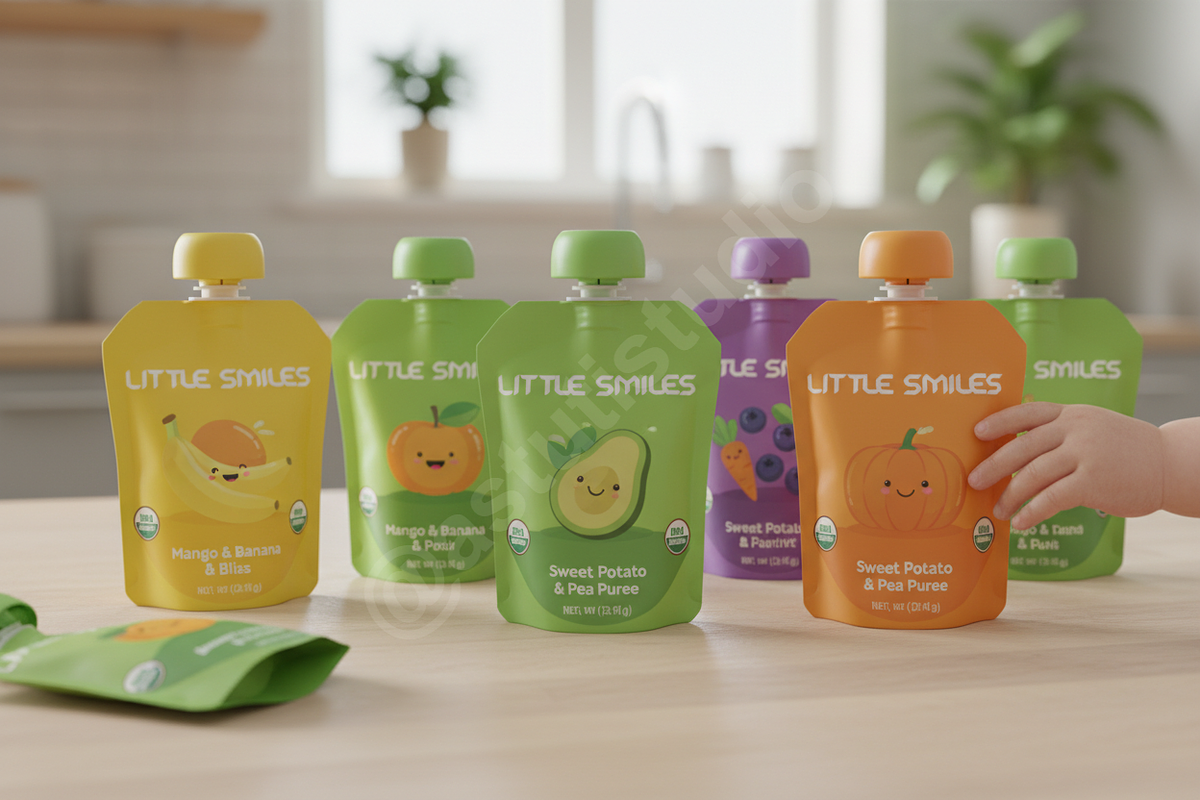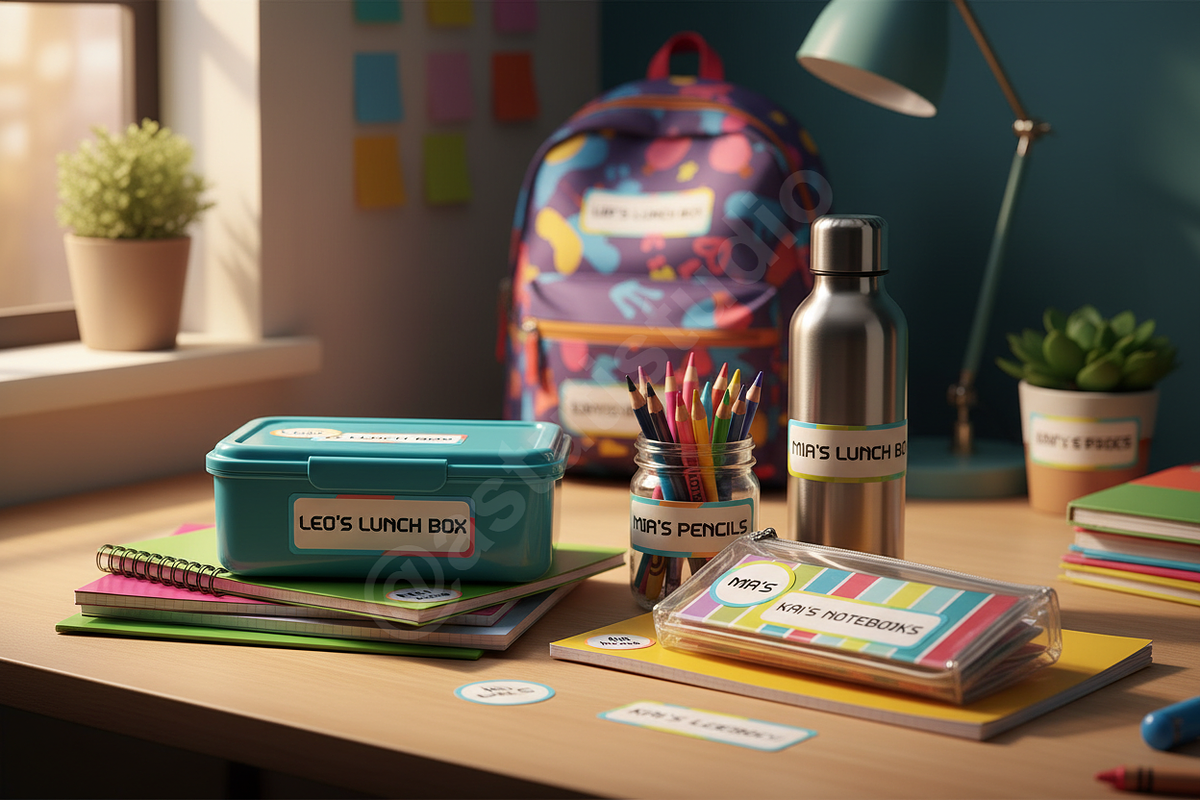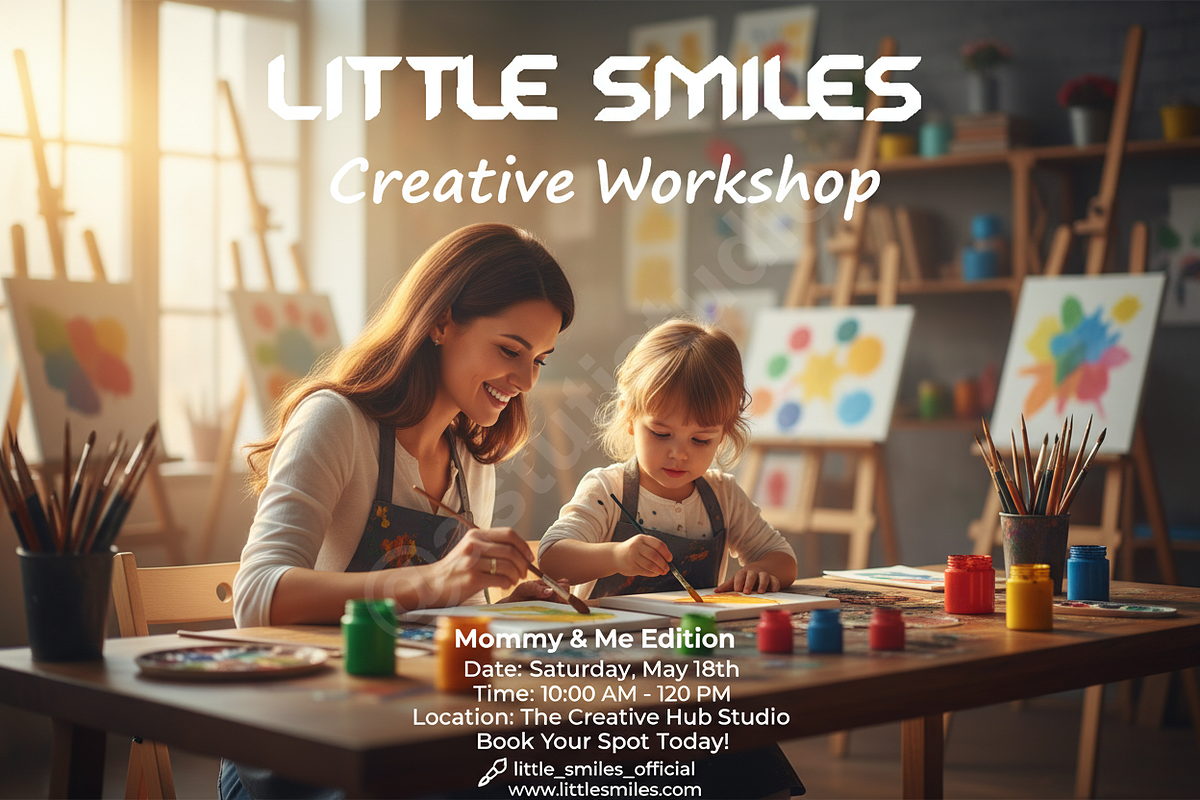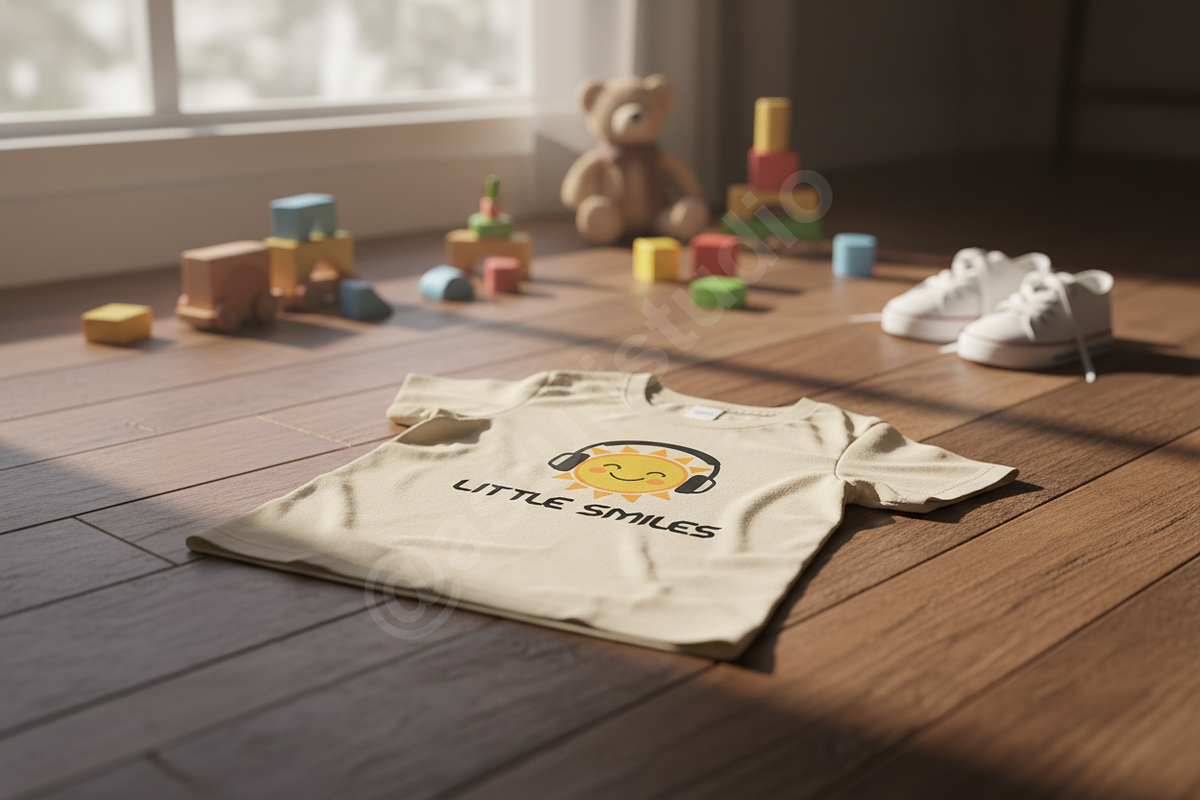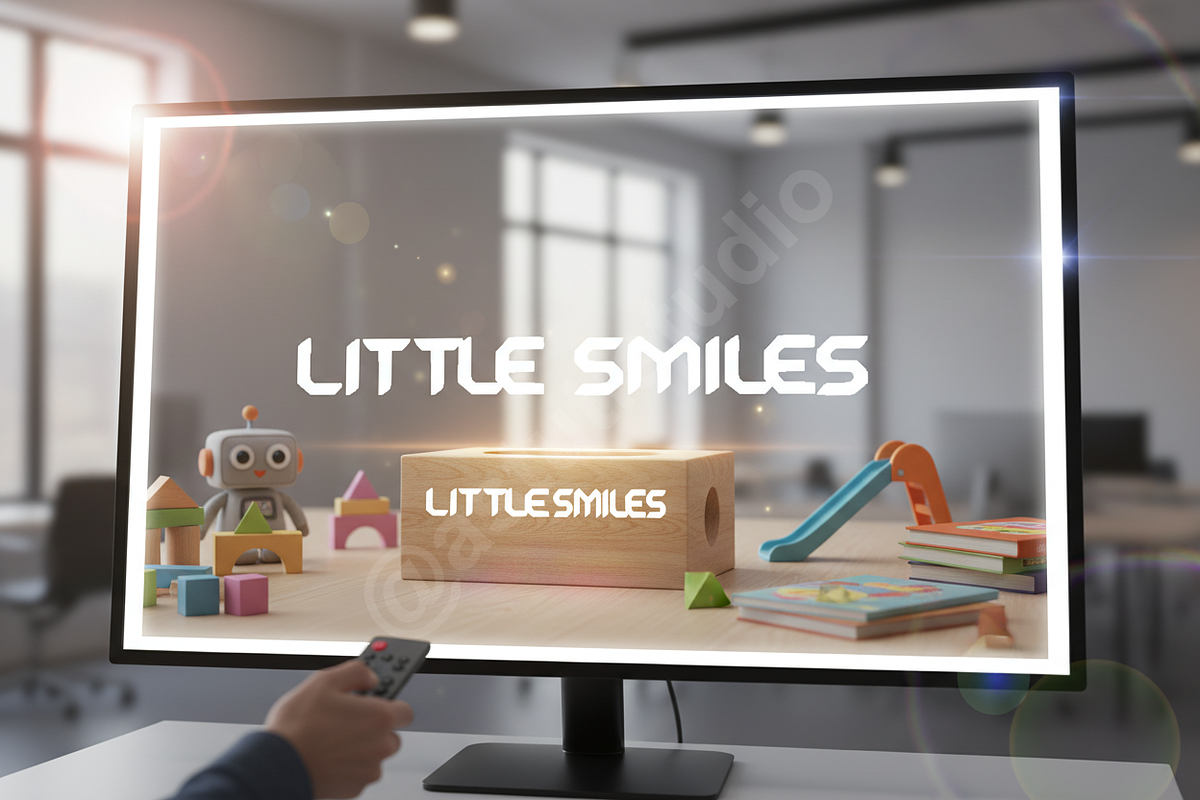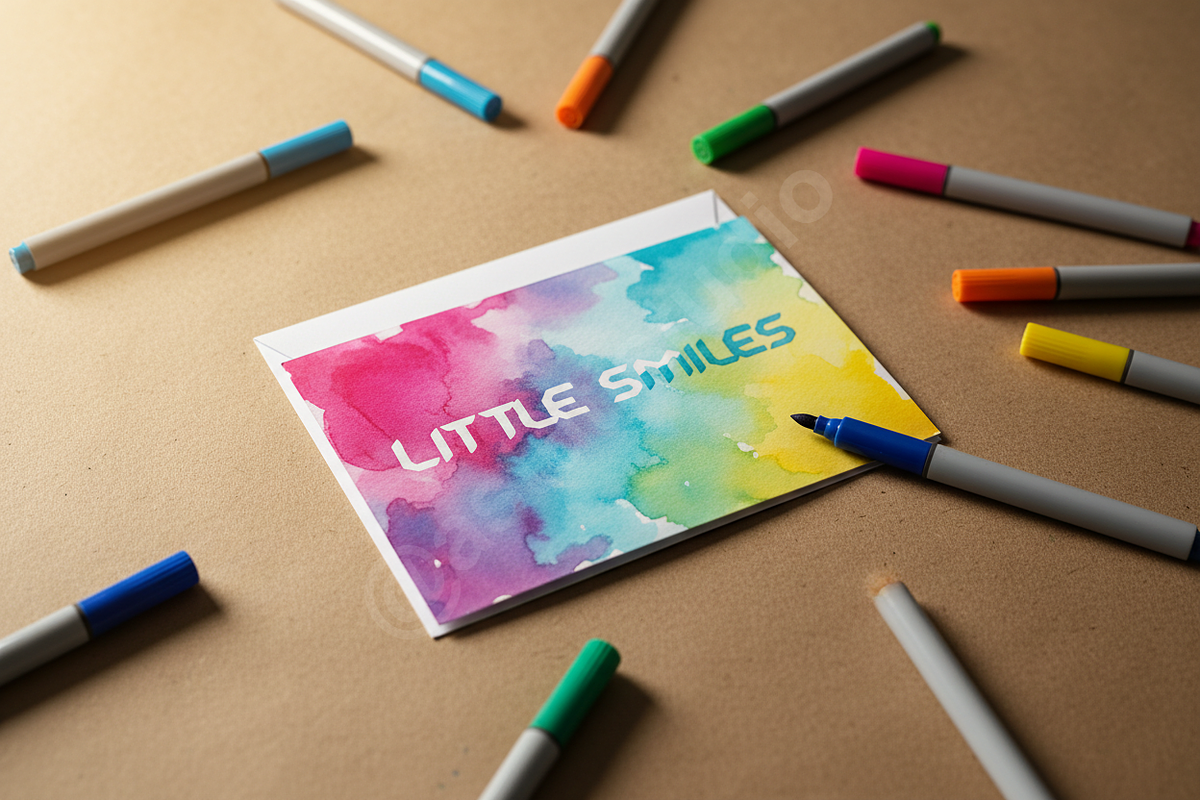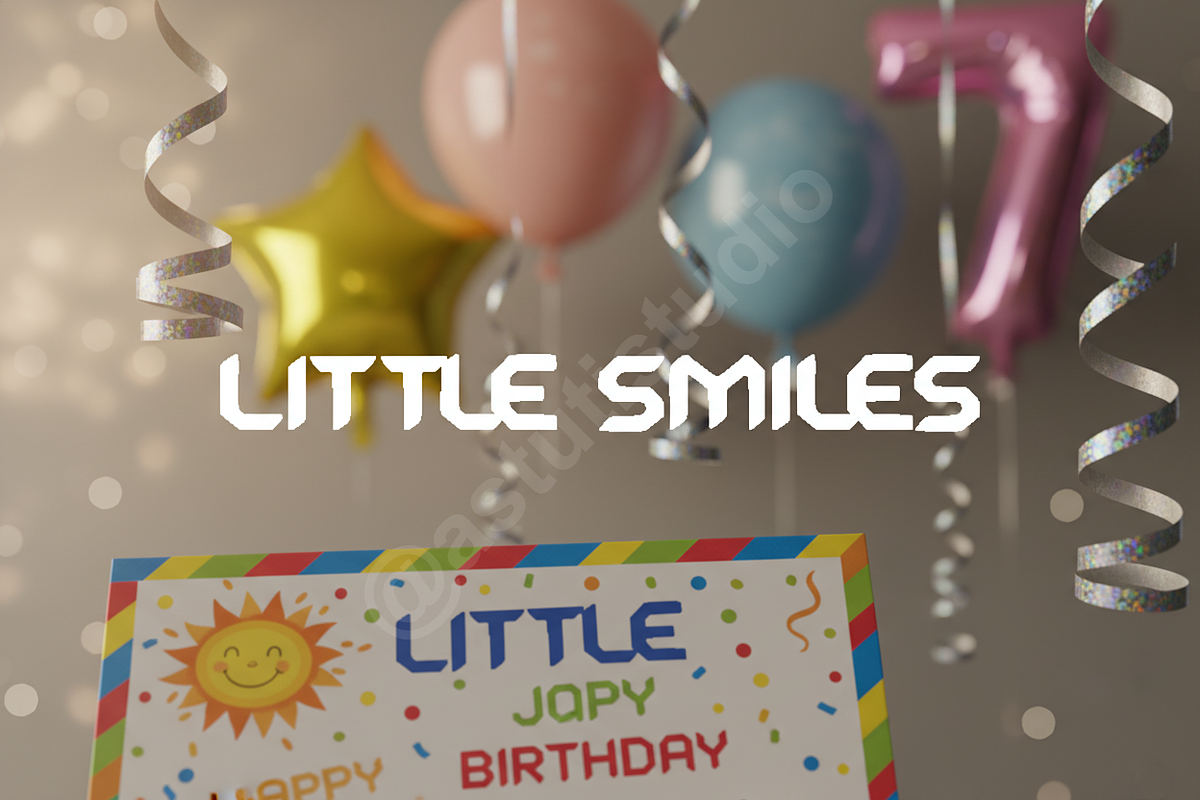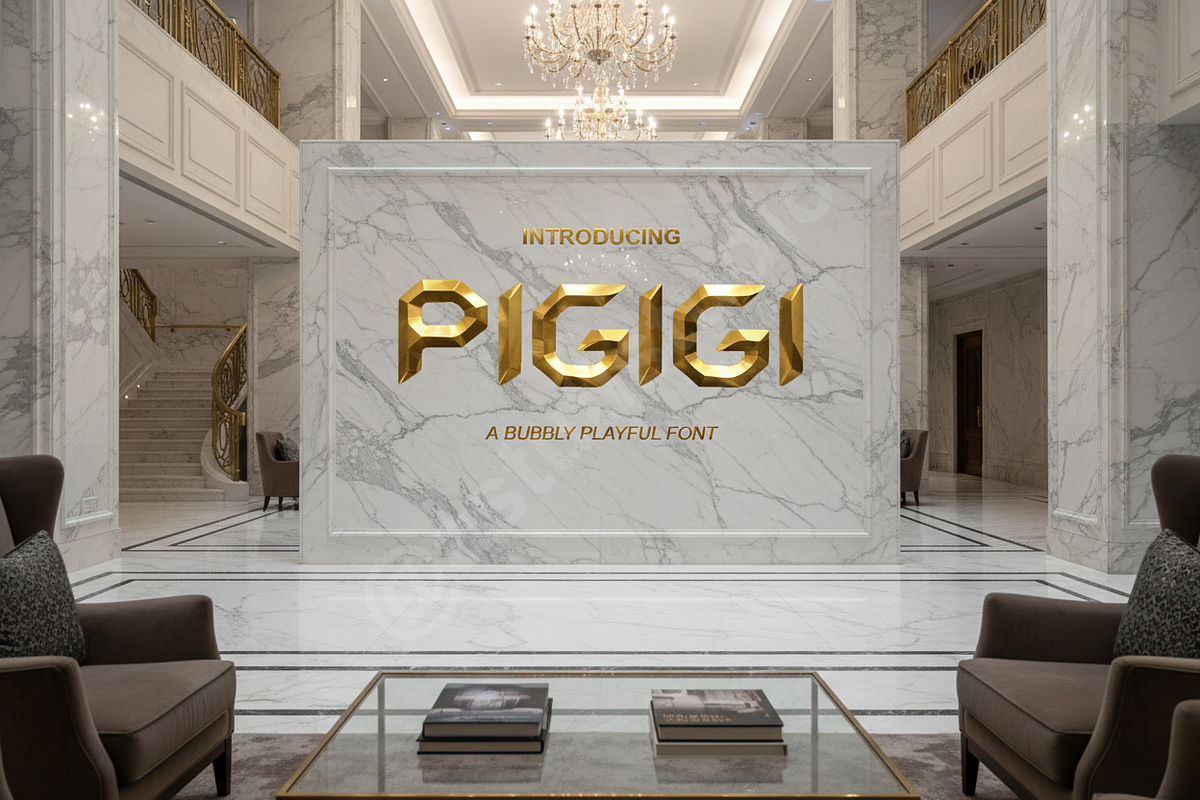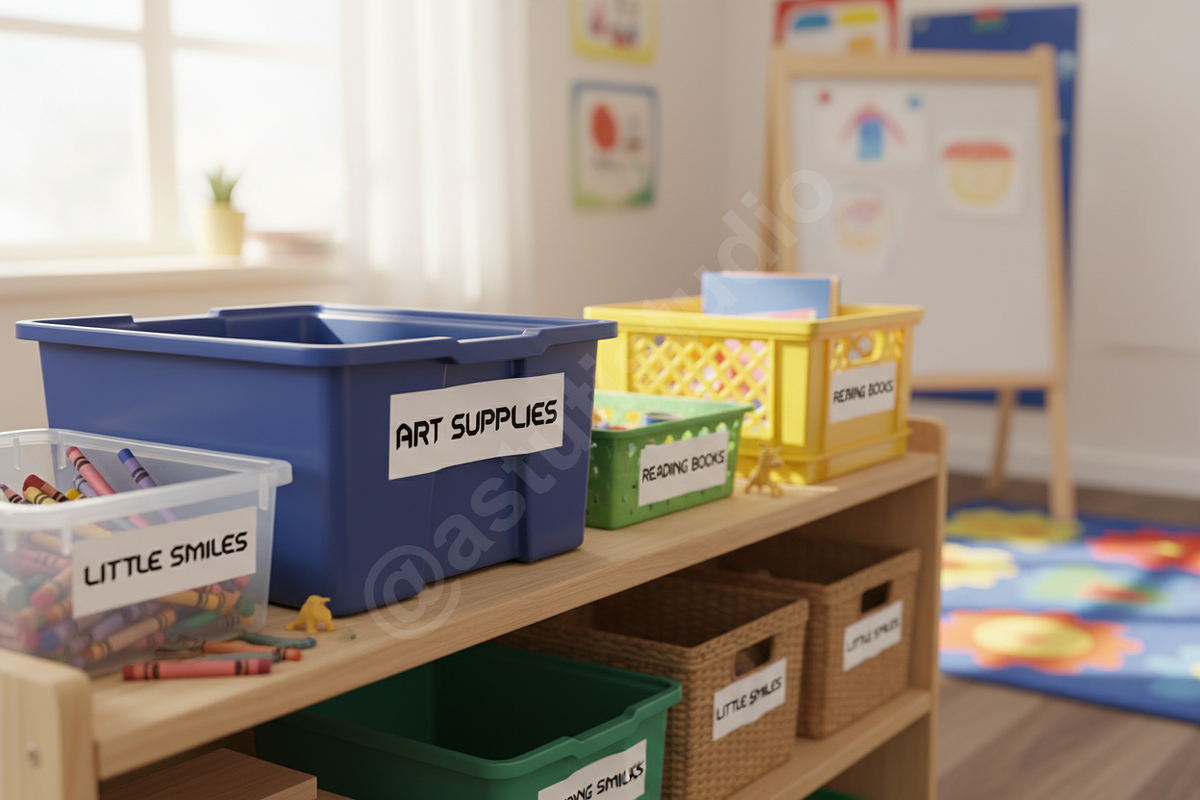
Pigigi - Sophisticated Modern Sans S
INTRODUCTION Pigigi is a refined, contemporary typeface meticulously crafted for high-end aesthetics. Drawing inspiration from premium editorial layouts, this font balances modern minimalism with a sophisticated flair, making it the ideal choice for designers looking to elevate their brand presence and create a lasting impression.
- Clean, geometric letterforms with a premium finish
- Sophisticated ligatures and stylistic alternates for a custom look
- Precision-optimized kerning for professional typography